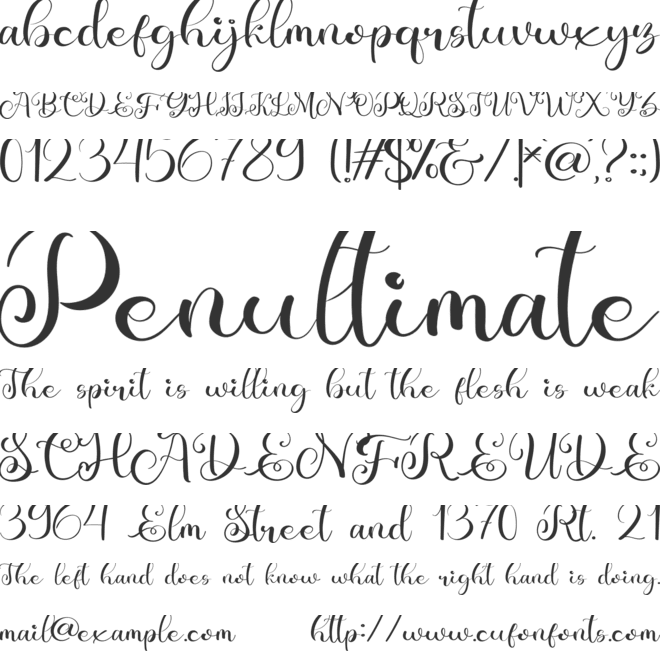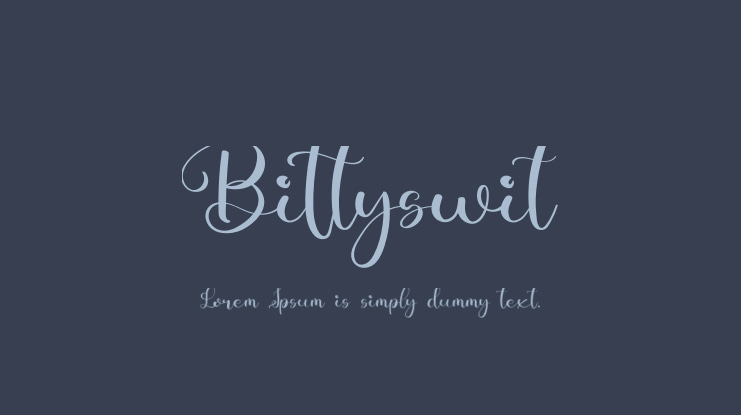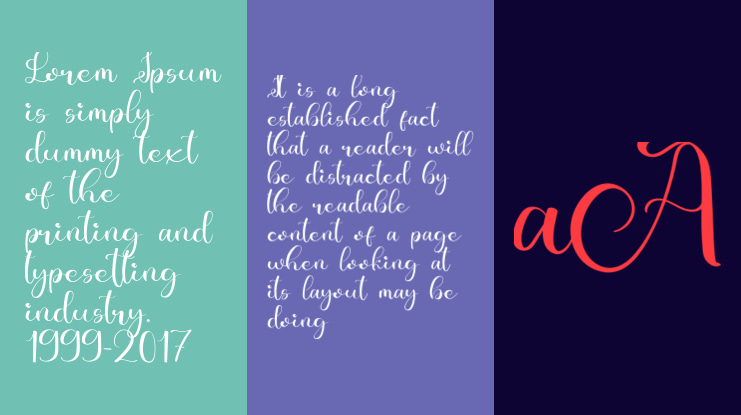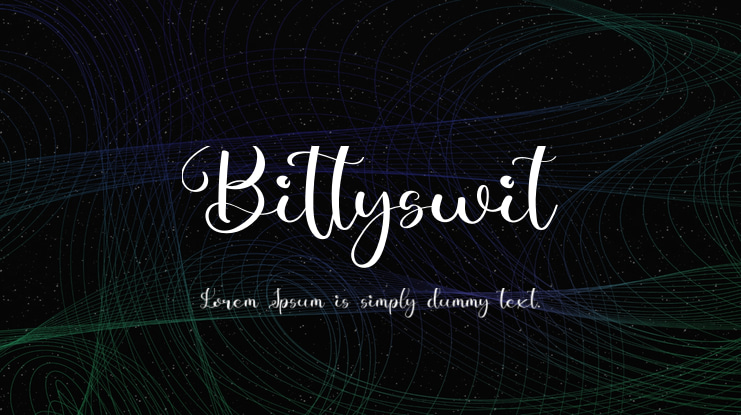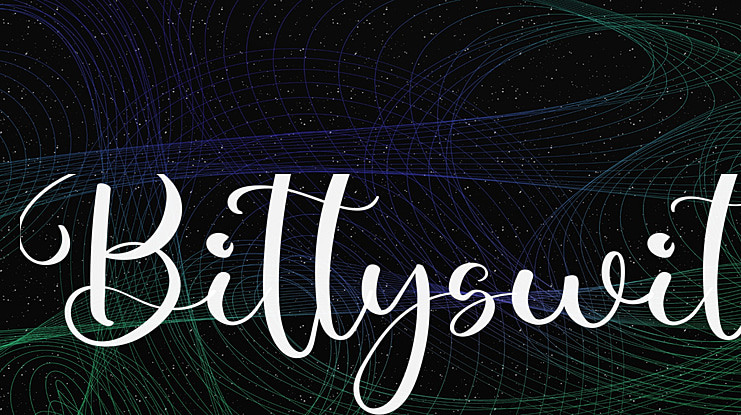
Bittyswit Font
Aditya Rezki Apriyadi
BittySwit font, the name was taken fro "Better" and "Sweet"this goals is to make your every design project looks more Better and Sweet when use this fontHaving many alternate, as we describe in the preview, you can be creative with it !